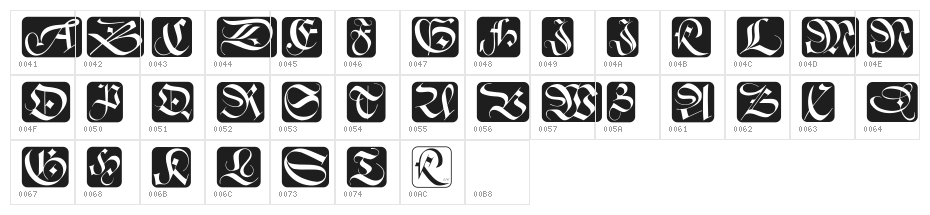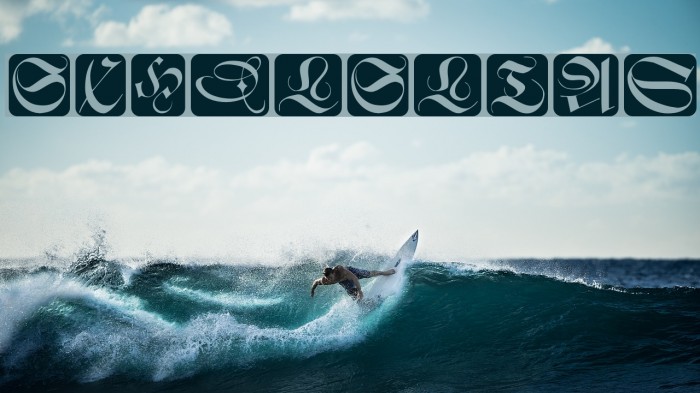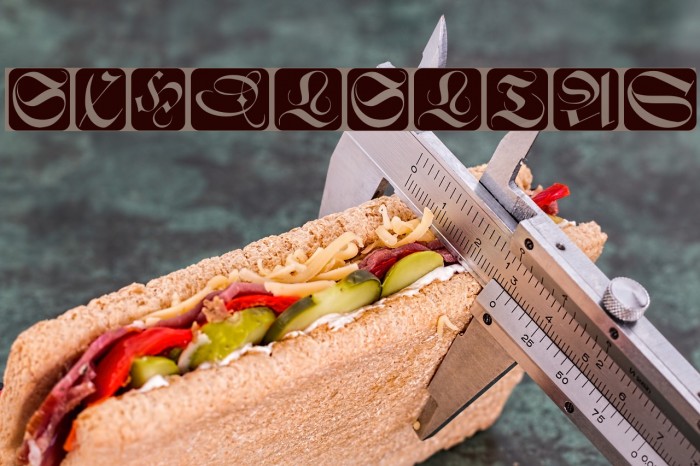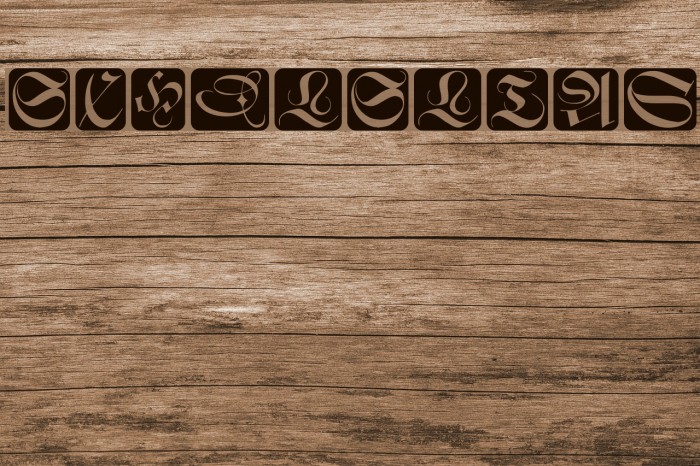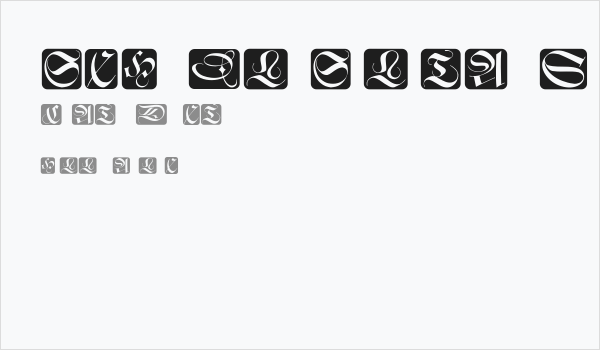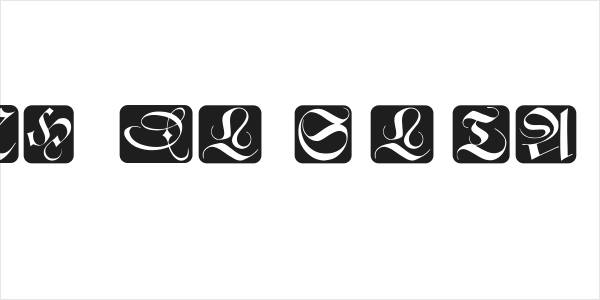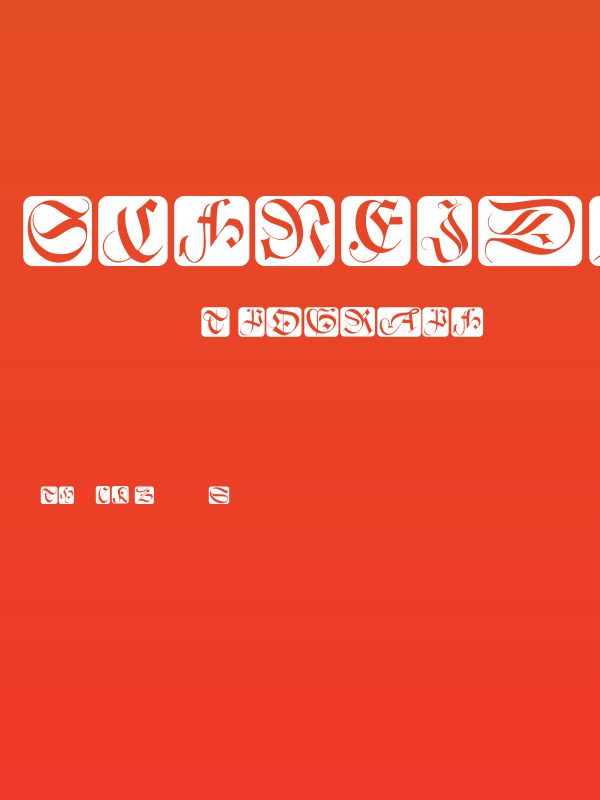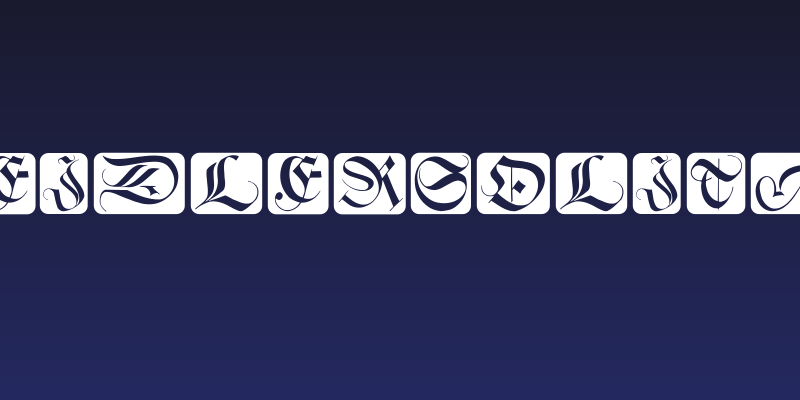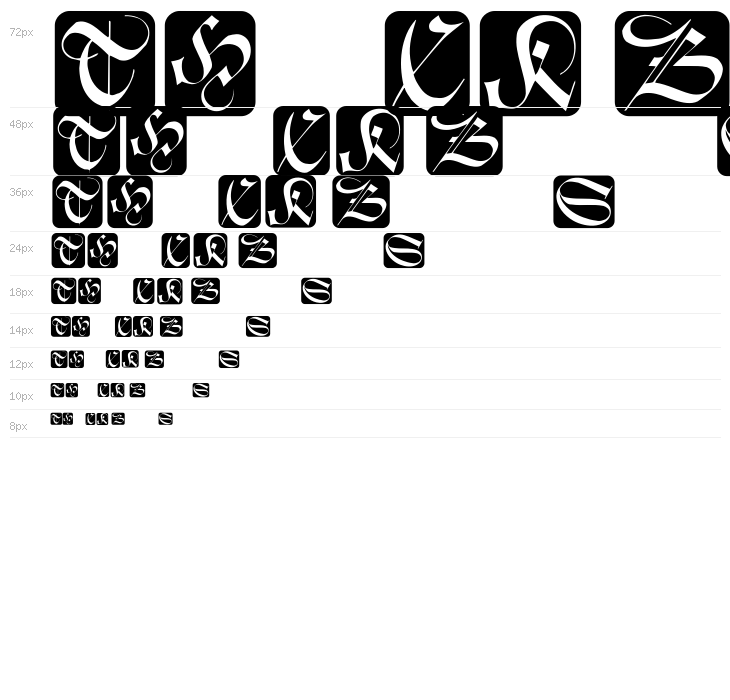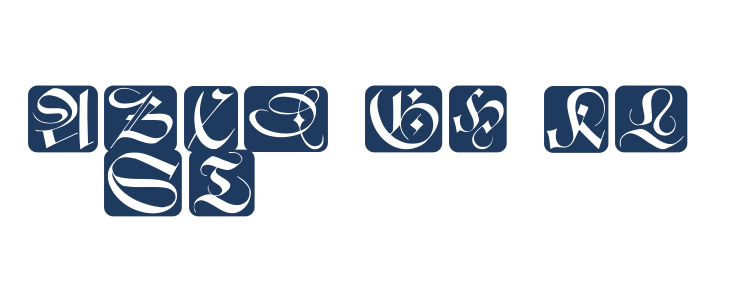
This font is a striking example of blackletter style, characterized by its intricate and ornate design. Each character is enclosed in a square, giving it a unique, boxed appearance. The letters feature dramatic flourishes and sharp angles, typical of traditional blackletter fonts, yet they maintain a modern twist with their bold presentation. The high contrast between thick and thin strokes adds to its visual impact, making it stand out in any design. The font's decorative nature makes it suitable for projects that require a touch of elegance and historical flair.
| Proposed Projects | Ideal for use in branding, logos, invitations, and any project requiring a historical or elegant touch. |